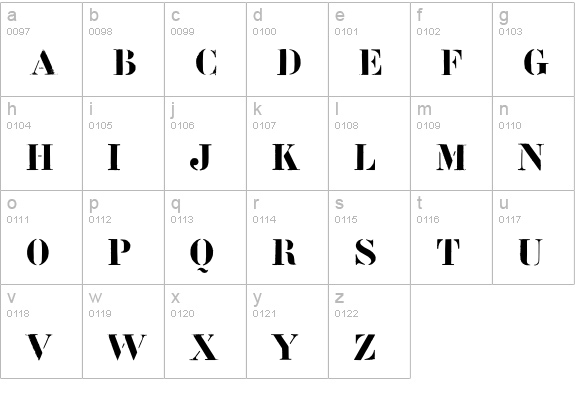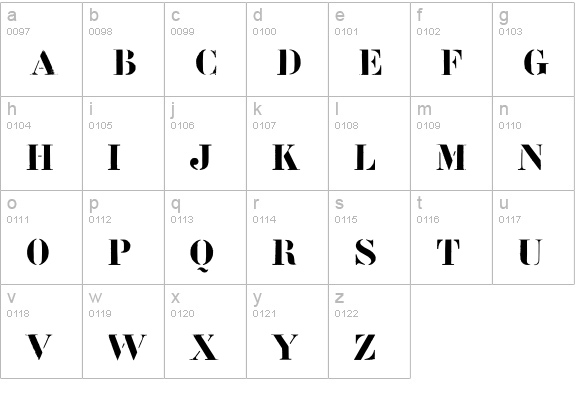
Flightcase Font Details
Flightcase font is a modern and stylish typeface that exudes sophistication and elegance. With its clean lines and sleek design, this font is perfect for a wide range of design projects, from branding to marketing materials. The sharp edges and bold strokes of Flightcase font make it stand out and grab attention, while still maintaining a sense of professionalism. Best of all, Flightcase font is completely free to download at FontsMarket.com. This means you can easily access this versatile font for all your creative needs without any cost. Whether you're designing a logo, creating a website, or working on a print project, Flightcase font is sure to elevate your work and make a lasting impression. Download Flightcase font today and take your designs to the next level.